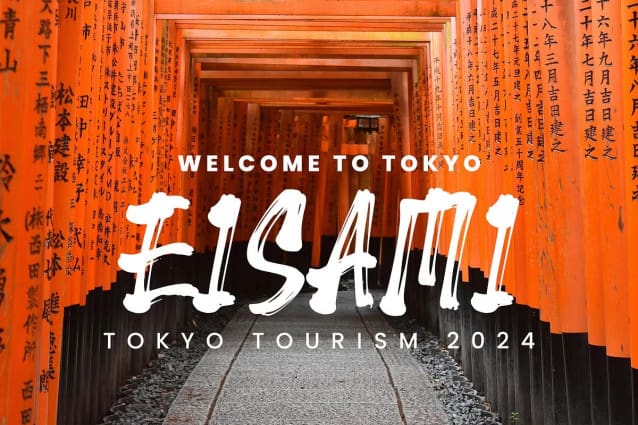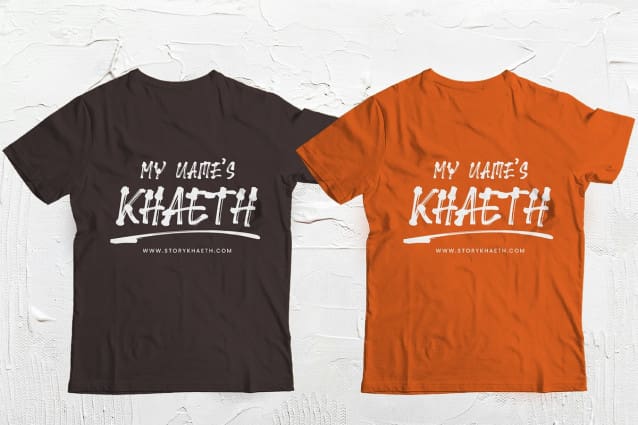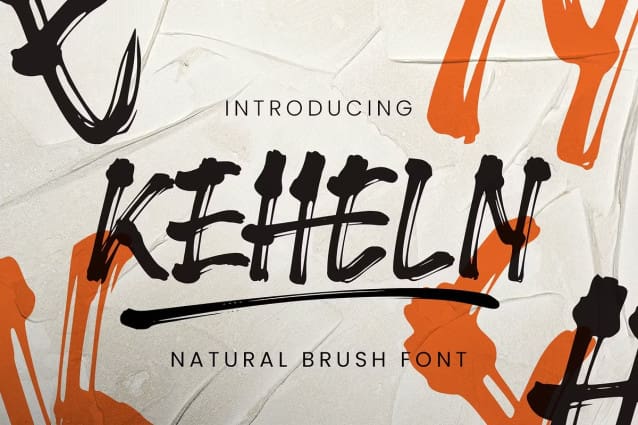
Keheln Brush Font
Keheln Brush Font is a natural brush font designed to bring a creative and energetic touch to your projects. With its dynamic strokes and authentic brush texture, this font is perfect for various design needs such as posters, branding, packaging, and other creative works.
It offers a relaxed yet professional vibe, ideal for creating expressive and bold designs. Keheln is the perfect choice to make your designs stand out and grab attention.